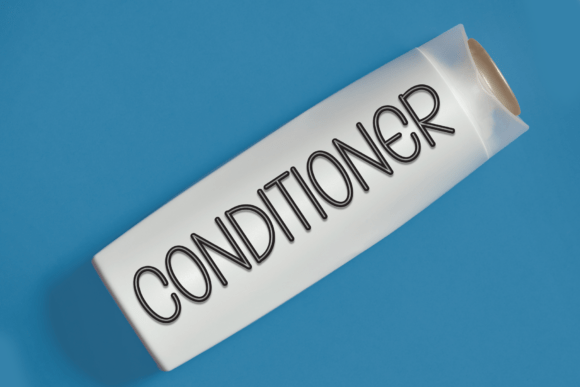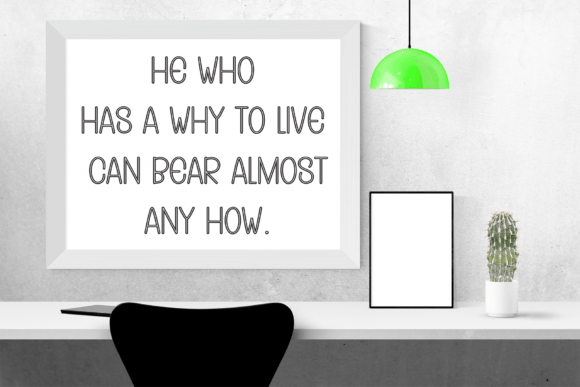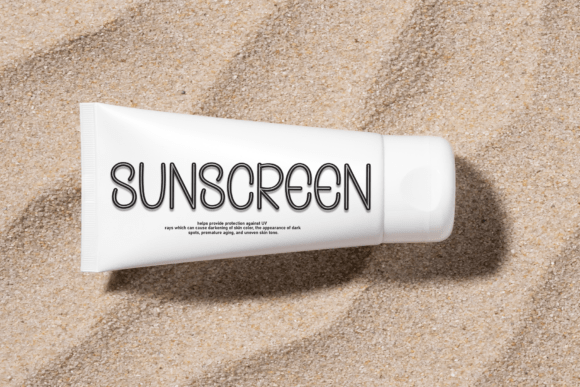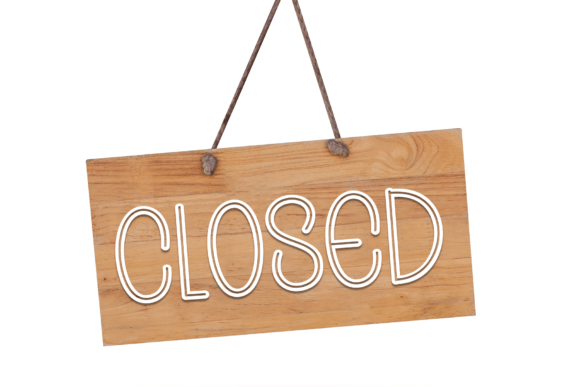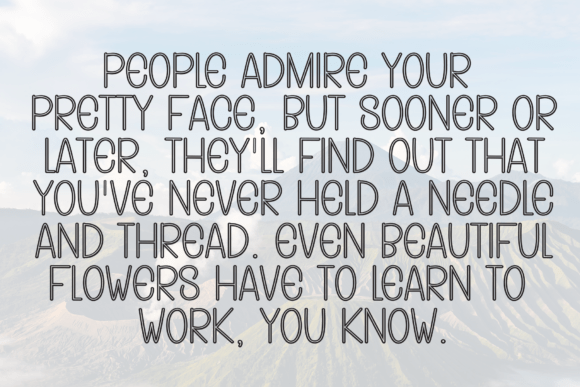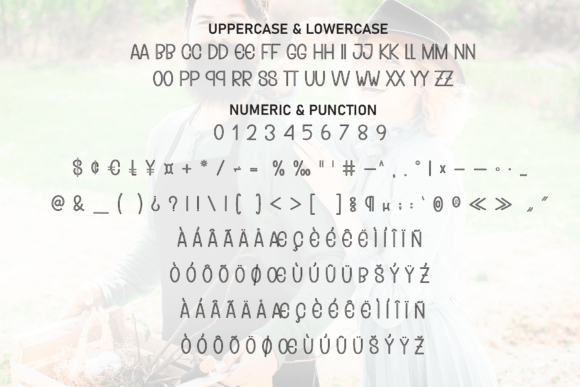
Introducing Farmer Valentine Font: A Charming Handwritten Display Font
Are you looking for a font that can add a touch of warmth and cheer to your designs? Look no further than the Farmer Valentine Font, a charming and affable handwritten display font that is perfect for a variety of creative projects. With its delightful and lighthearted nature, this font is sure to bring a sense of joy and playfulness to your work.
A Font that Exudes Warmth and Cheer
The Farmer Valentine Font is intricately crafted to bring a sense of warmth and cheer to your designs. Its unique and distinct design makes it a quintessential choice for penning wedding invitations, crafting cards, or adding an enchanting touch to any design that craves a dash of fun. Whether you’re a designer, crafter, or DIY enthusiast, this font is sure to become a favorite in your collection.
One of the standout features of the Farmer Valentine Font is its suitability for wedding invitations and cards. Its elegant and refined design makes it perfect for formal events, while its playful and whimsical nature ensures that it will add a touch of personality to your designs. Imagine creating beautiful wedding invitations, save-the-date cards, or thank-you notes that are truly unique and memorable.
Add a Touch of Whimsy to Your Designs
The Farmer Valentine Font is not just limited to wedding invitations and cards. Its delightful and lighthearted nature makes it perfect for adding a touch of whimsy to any design. Whether you’re creating a logo, branding materials, or social media graphics, this font is sure to bring a sense of fun and playfulness to your work. Its distinct design will ensure that your projects stand out from the crowd and resonate with audiences seeking simplistic elegance and inviting charm.
Key Features of the Farmer Valentine Font
• Charming and affable handwritten display font
• Delightful and lighthearted nature
• Perfect for wedding invitations, cards, and other formal events
• Great for adding a touch of whimsy to logos, branding materials, and social media graphics
• Distinct design that ensures your projects stand out
• Simple and elegant, yet playful and fun
Why Choose the Farmer Valentine Font?
So why choose the Farmer Valentine Font for your next project? Here are just a few reasons:
• Unique and distinctive design: The Farmer Valentine Font has a unique and distinctive design that will set your projects apart from the crowd.
• Versatile: This font is versatile and can be used for a variety of creative projects, from wedding invitations to social media graphics.
• Easy to read: The Farmer Valentine Font is easy to read, even at small sizes, making it perfect for a variety of applications.
• Fun and playful: This font is fun and playful, adding a touch of personality to your designs.
Tips for Using the Farmer Valentine Font
Here are a few tips for using the Farmer Valentine Font in your designs:
• Use it for headlines and titles: The Farmer Valentine Font is perfect for headlines and titles, adding a touch of whimsy and personality to your designs.
• Pair it with other fonts: This font pairs well with other fonts, including serif and sans-serif fonts.
• Experiment with different colors: The Farmer Valentine Font looks great in a variety of colors, from bright and bold to soft and pastel.
In conclusion, the Farmer Valentine Font is a charming and affable handwritten display font that is perfect for a variety of creative projects. Its delightful and lighthearted nature makes it a quintessential choice for penning wedding invitations, crafting cards, or adding an enchanting touch to any design that craves a dash of fun. With its distinct design and playful vibe, this font is sure to infuse your projects with jovial charm and a sense of warmth and cheer.